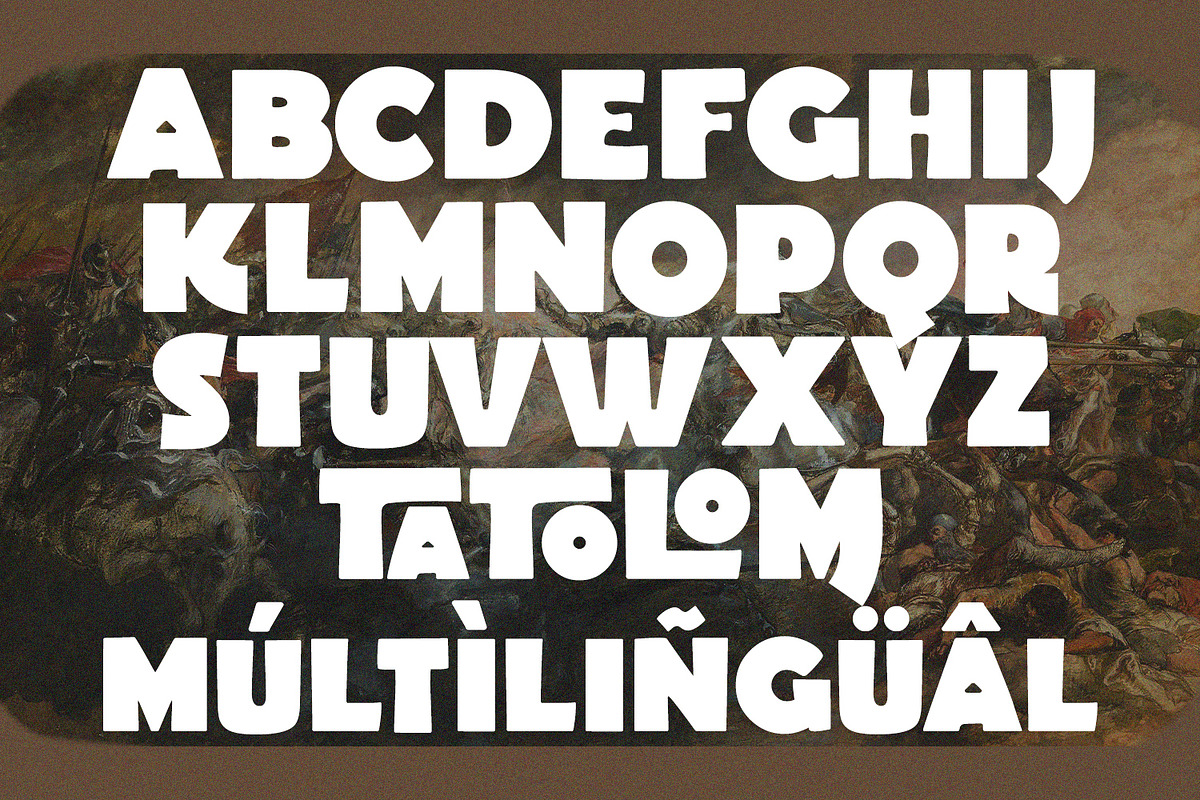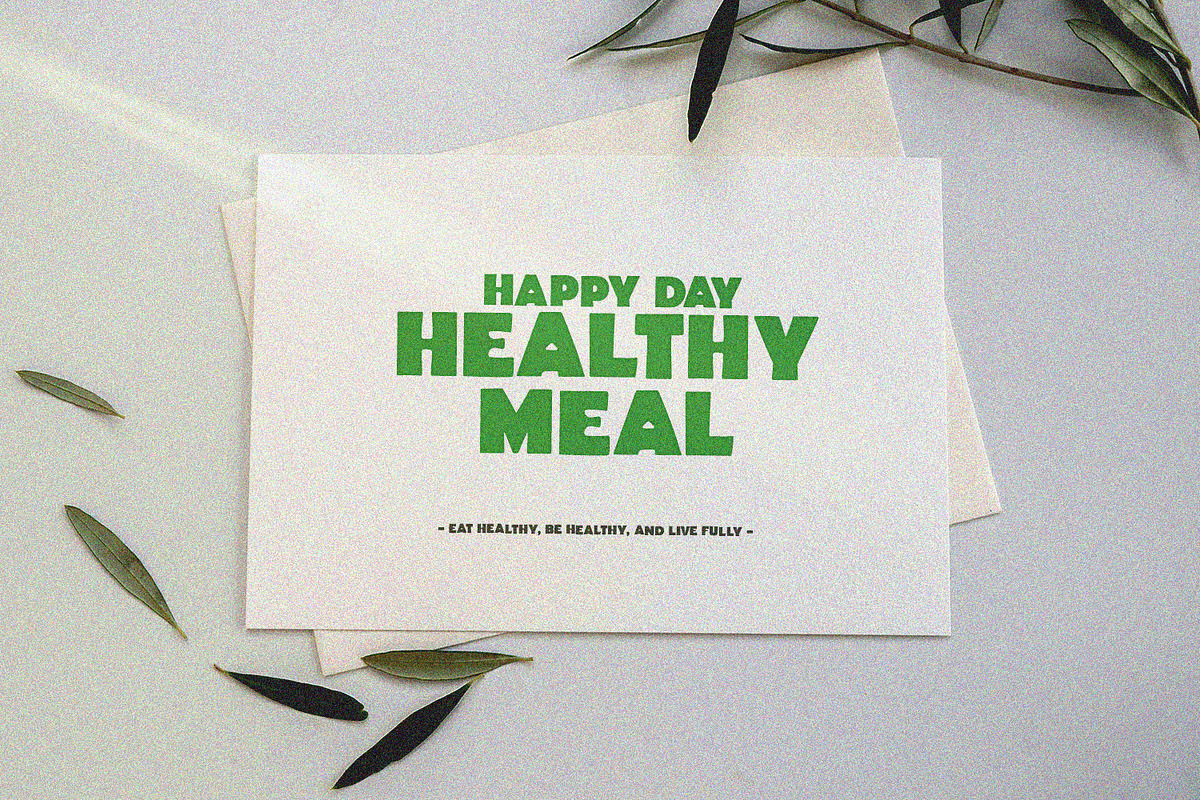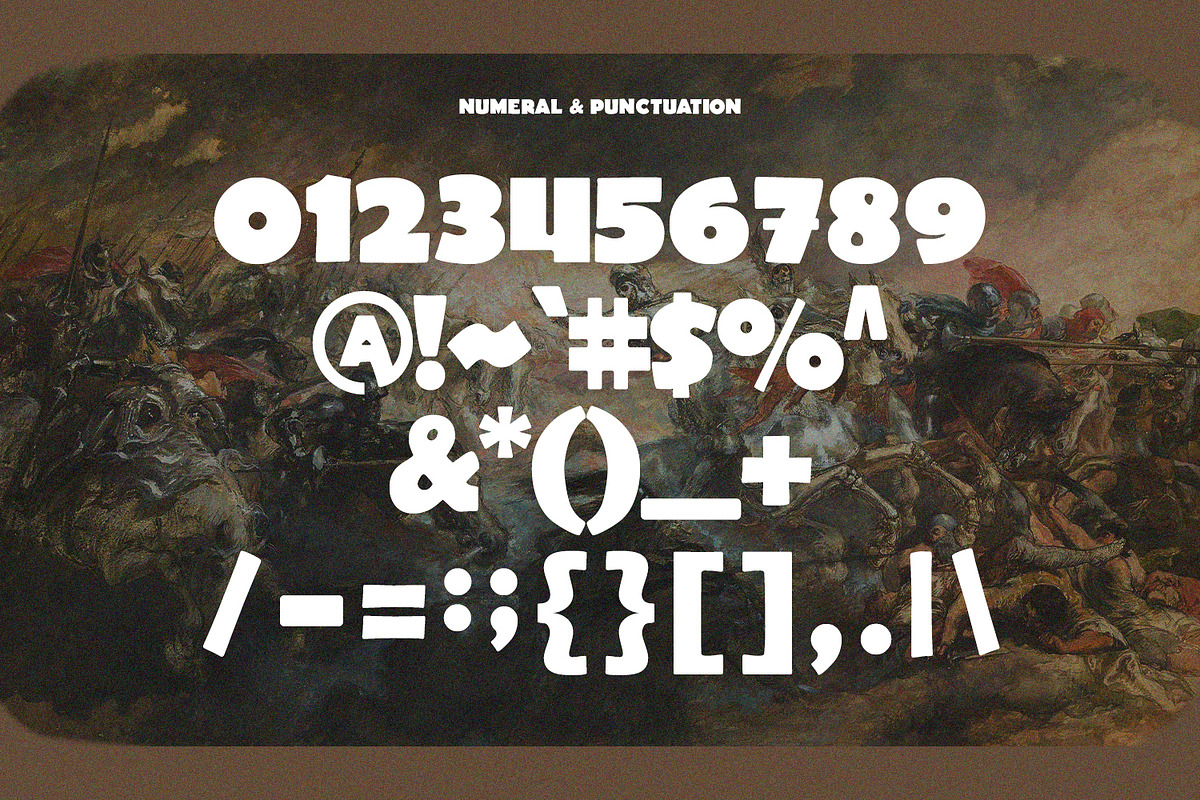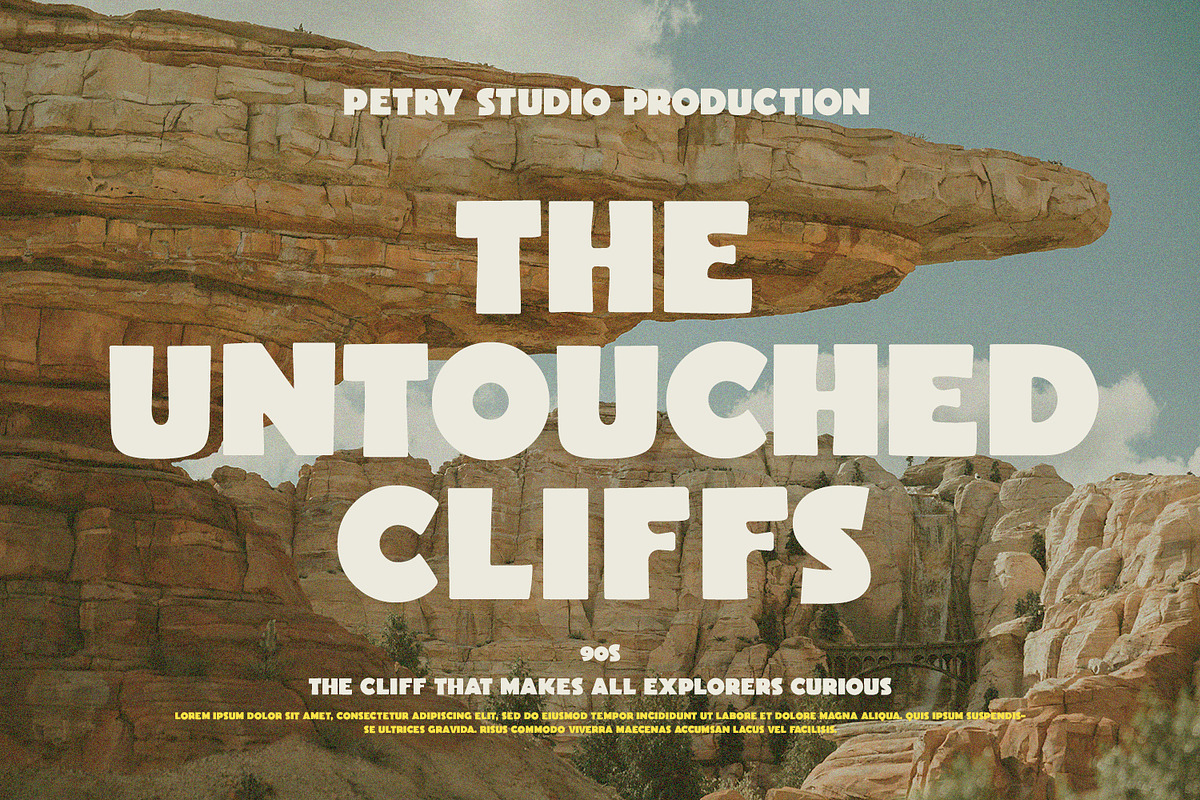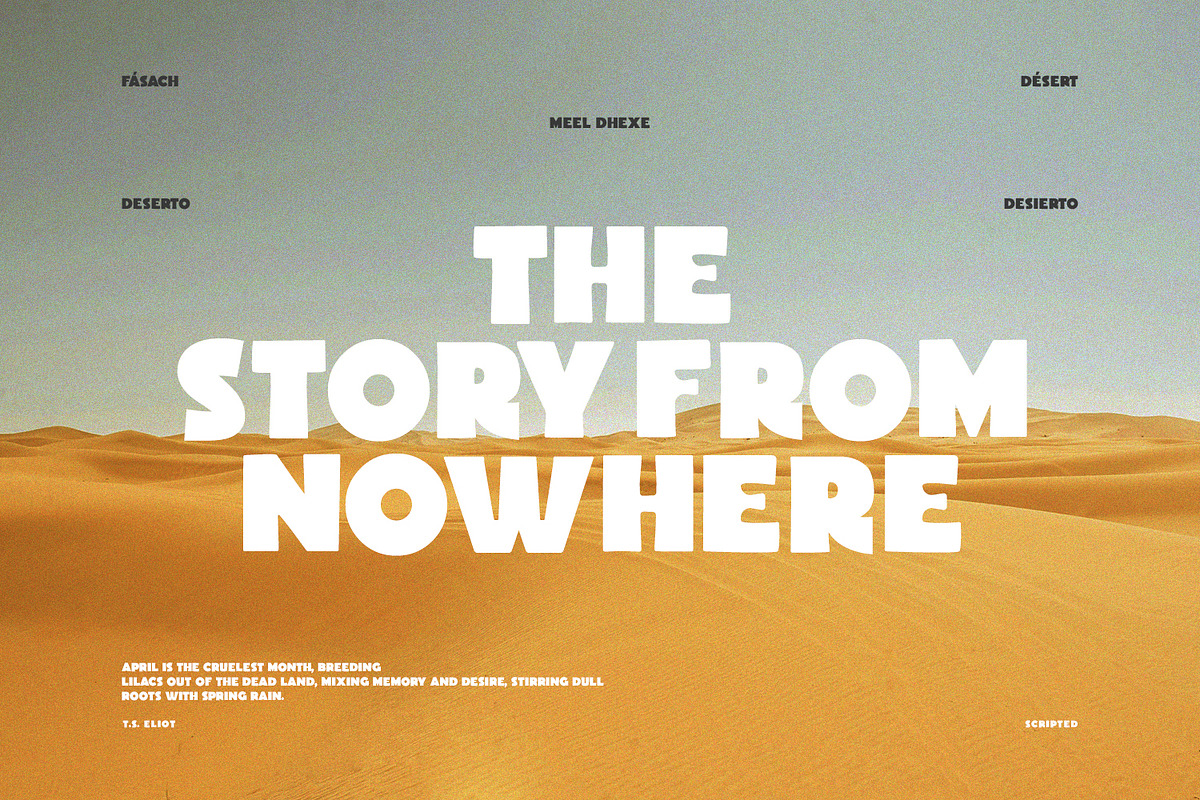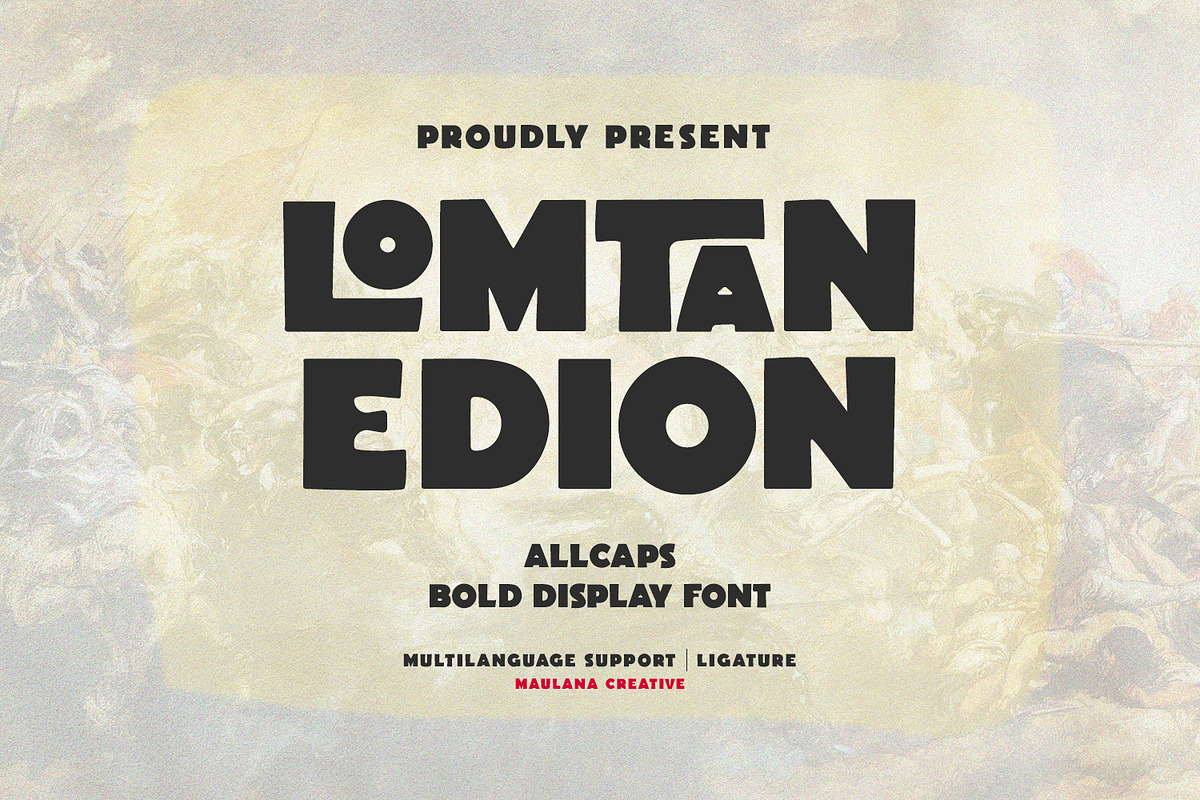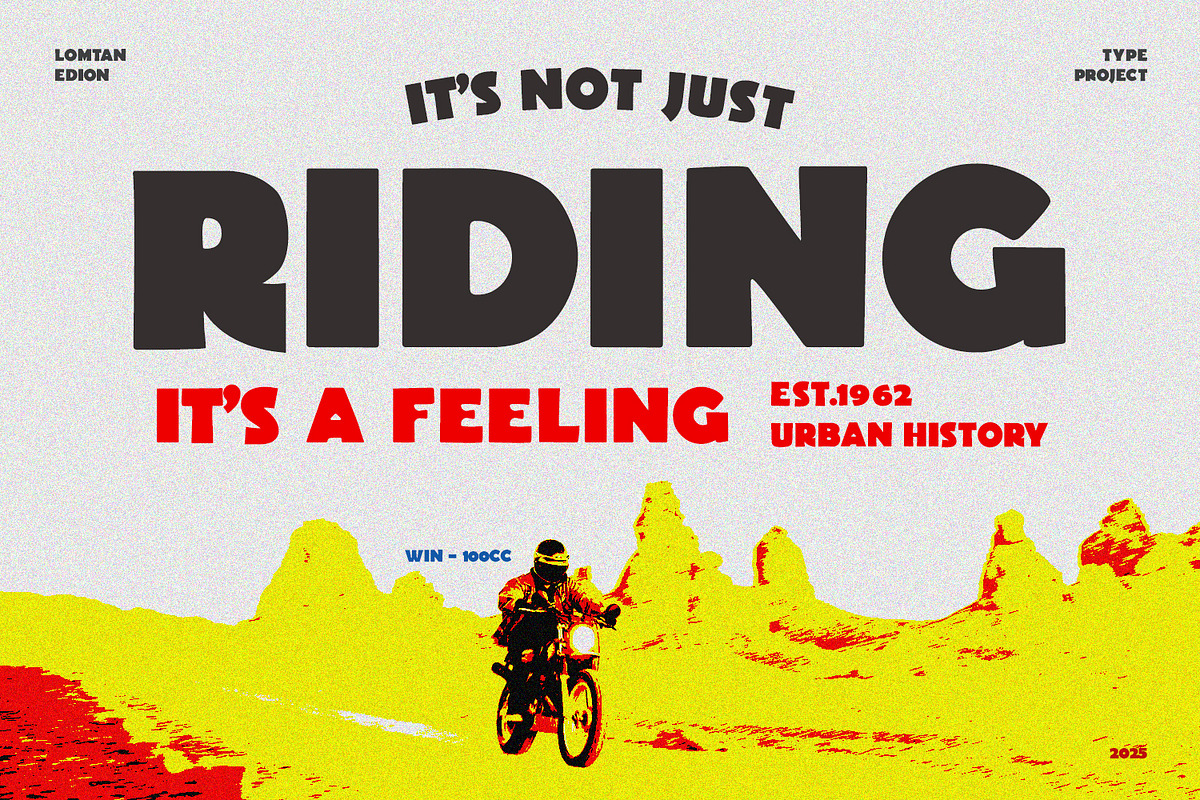
Lomtan Edion Bold Sans Serif Display
Lomtan Edion is a bold vintage condensed all caps sans serif font. With bold tall and sharp stroke, fun character with a bit of ligature and alternate. To give you an extra creative work. Lomtan Edion font support multilingual more than 100+ language. This font is good for logo design, Social media, Movie Titles, Books Titles, a short text even a long text letter and good for your secondary text font with sans or serif. Make a stunning work with Lomtan Edion font.